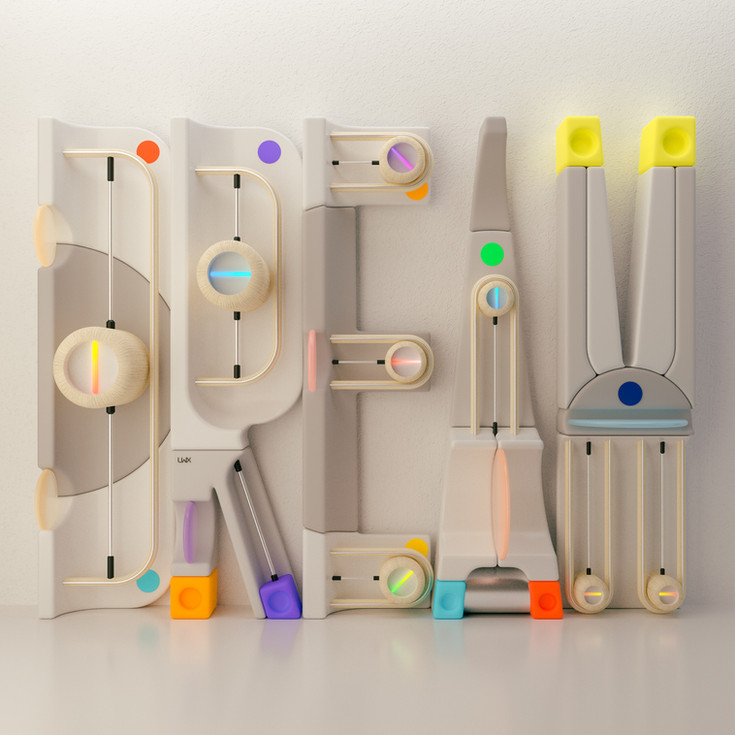
Interview with Leonardo Betti – Where 3D, Skate, Sound, and Empathy Meet
Leonardo Betti, also known as Leonardoworx, is a digital artist based in Florence, Italy. His practice focuses on abstract 3D compositions and typographic artworks, where form, color, and language merge into expressive visual narratives. Throughout his career, Betti has contributed to global advertising campaigns and editorial projects, collaborating with internationally recognized clients such as Adobe, Microsoft, Wired, and Apple, among many others. Alongside commercial work, he has been commissioned for both solo and collective exhibitions in art galleries worldwide, affirming his role within the contemporary digital art scene.
Low Your Mind, Be Kind - Leonardo Betti's submission for FFK 2023
In 2023, Leonardo Betti kindly joined the Fight for Kindness campaign as a guest with his poster titled “Blow Your Mind, Be Kind.” The artwork stands out as a powerful and joyful visual statement, celebrating kindness not only toward others but also toward our own minds and hearts.
In addition to the visual contribution, Leonardoworx is also the author of the original audio track featured in the official videoreel of the 2023 edition, further shaping the emotional and narrative identity of the project.
His contribution is deeply representative of the global community of digital creators — artists who master complex digital tools on a daily basis while remaining grounded in a fundamental purpose: to stay human, to care, and to nurture empathy through creativity.
We asked Leonardo a few questions about the process behind his creative life —moving effortlessly between bold 3D artworks, a skate trick in motion, and his remarkable talent in the music field.
How would you describe your design philosophy today?
Has it evolved through the projects you’ve chosen or the
messages you’ve wanted to express?
When I first started my journey in the world of design, I used to create super intricate and complex compositions. As my main tool has always been 3D software, I was really drawn to creating abstract and dark compositions with fluids, trails, and particles. The results were visually stunning, but the message I wanted to convey was a bit too simple for some people to grasp. So, over the years, I’ve shifted my focus to simpler compositions and shapes. I’ve been really interested in balancing colors, forms, and materials, and I’ve even added “human errors” to my 3D artworks (like applying handmade textures) to make the message I wanted to express more impactful and personal.
When creating typographic work, how do you balance concept, readability, and emotional resonance?
I like to imagine how the words of the typographic work look when I see them. That’s why the main part is the concept. In my case, it pushes me to be more spontaneous and original.I don’t use fonts, but I “sculpt” each letter to check if it’s easy to read and if it has an emotional impact. So, it has to be impactful also without colors or materials. The final step is working on colors and materials that are just as important as the previous steps. I’m looking for the “slight imperfect balance” but perfectly human, in terms of perception, of the final deliverable.
"Kindness is super important to me in every artwork I create, whether it’s for a client or just for fun. It’s a way for me to say, “Hey, let’s not just judge people based on how many likes or views they get on social media.” You know, we live in this crazy world where our ‘digital life’ is the main thing we do, and people feel like they’re always competing against each other. They’re ready to do anything to feel good for a few minutes on a social platform."
What role do values like kindness or empathy play in your design practice today?
Kindness is super important to me in every artwork I create, whether it’s for a client or just for fun. It’s a way for me to say, “Hey, let’s not just judge people based on how many likes or views they get on social media.” You know, we live in this crazy world where our ‘digital life’ is the main thing we do, and people feel like they’re always competing against each other. They’re ready to do anything to feel good for a few minutes on a social platform. This lack of empathy and acceptance of others who are different from us is really sad. Without empathy, the acceptance of all different lifeforms, cultures, and point of views... we can’t move forward, especially in creative fields like typography and design.
"ACRYLIC is an artwork series, a typographic concept but also the title of my recent album made with
my synthesizers"
Your work sits at the crossroads of skateboarding culture, electronic music, and digital art, giving you a unique perspective on visual storytelling. How does your creative process help you explore, challenge, and reinterpret the values of kindness within these cultural spaces?
I do street skateboarding since I was 8 Years old. Skateboarding helped me to enhance and evolve my fantasy, like watching a curb or a ledge in the corner of a street and visualize what kind of trick I could try and land. Also the concept to be unique, building up your style of skateboarding, making stronger your identity. But most of all the sense of community, like the happiness and joy you share with a friend, that after tons of tries, lands on bolts a switch hardflip backtail on a Jersey. My ambient music tunes and what I do in digital art share the same manifesto. Sometimes these passions cross each other, in terms of inspiration and sense of communication when you feel to share a little piece of your life with others.This is the best way I’ve found to be kind, respectful, open minded and also to be myself.